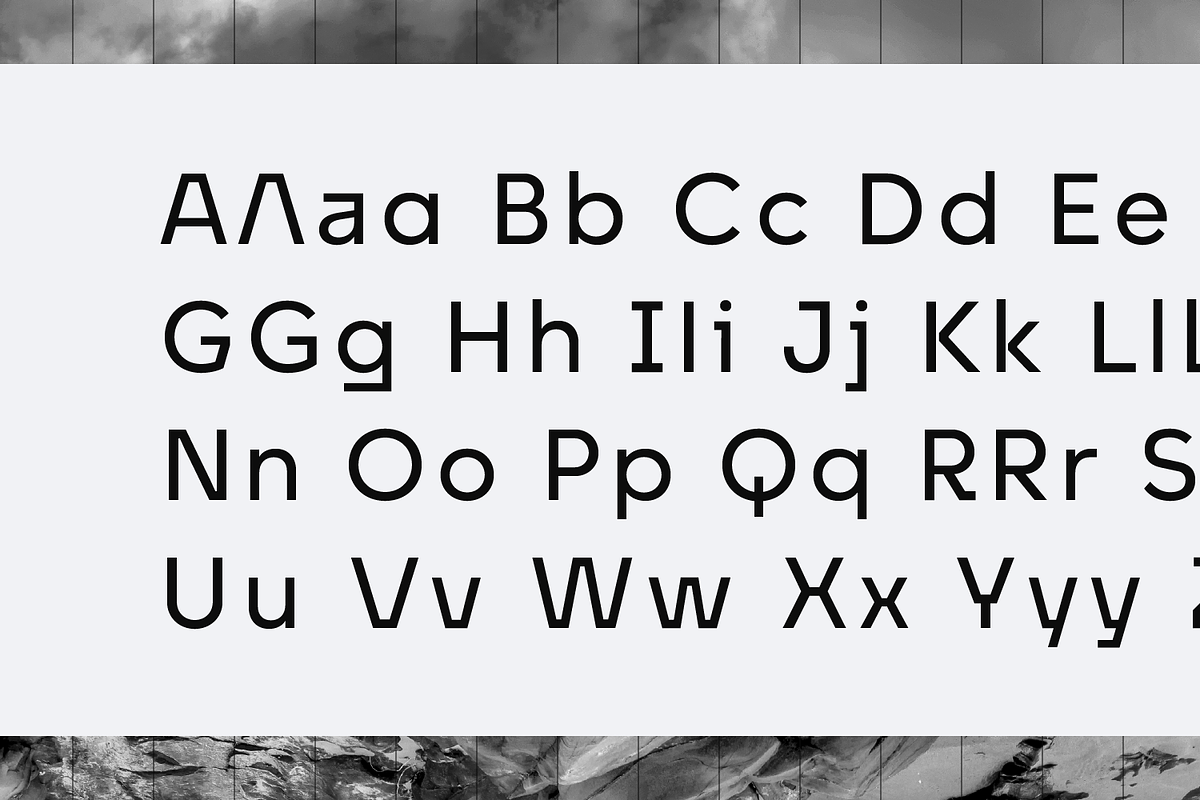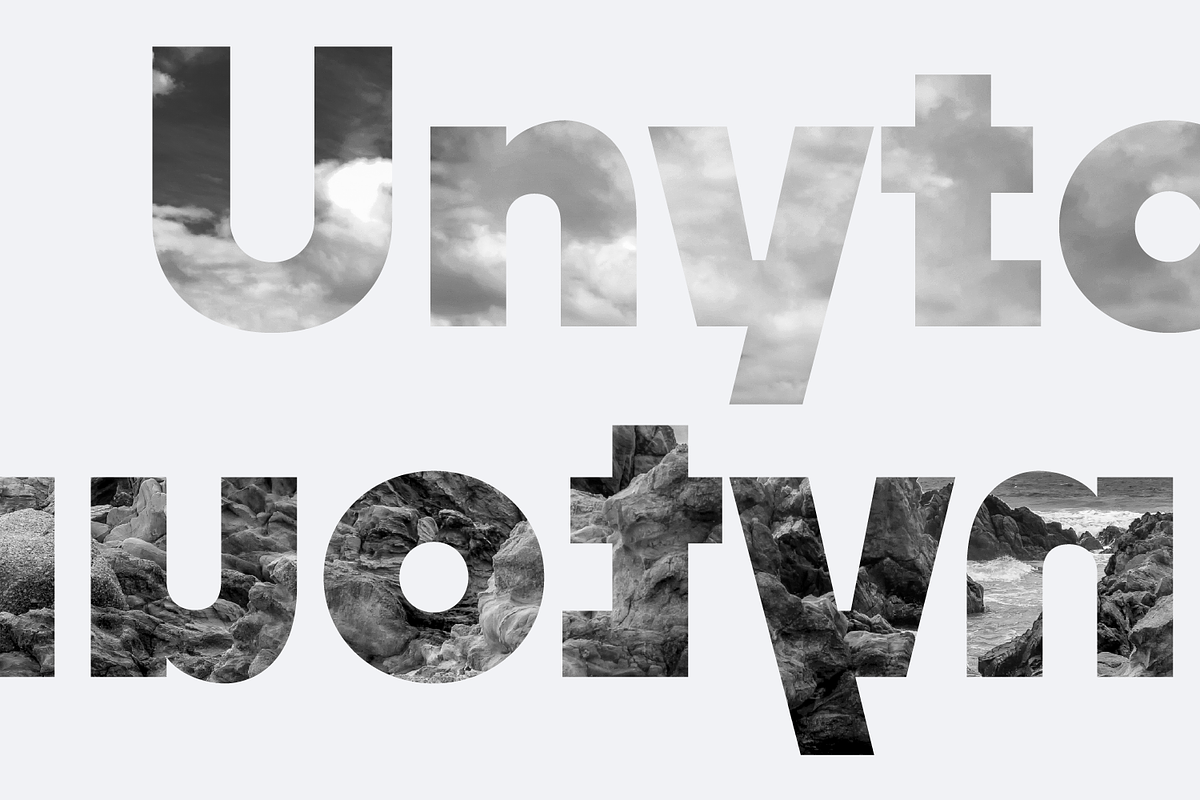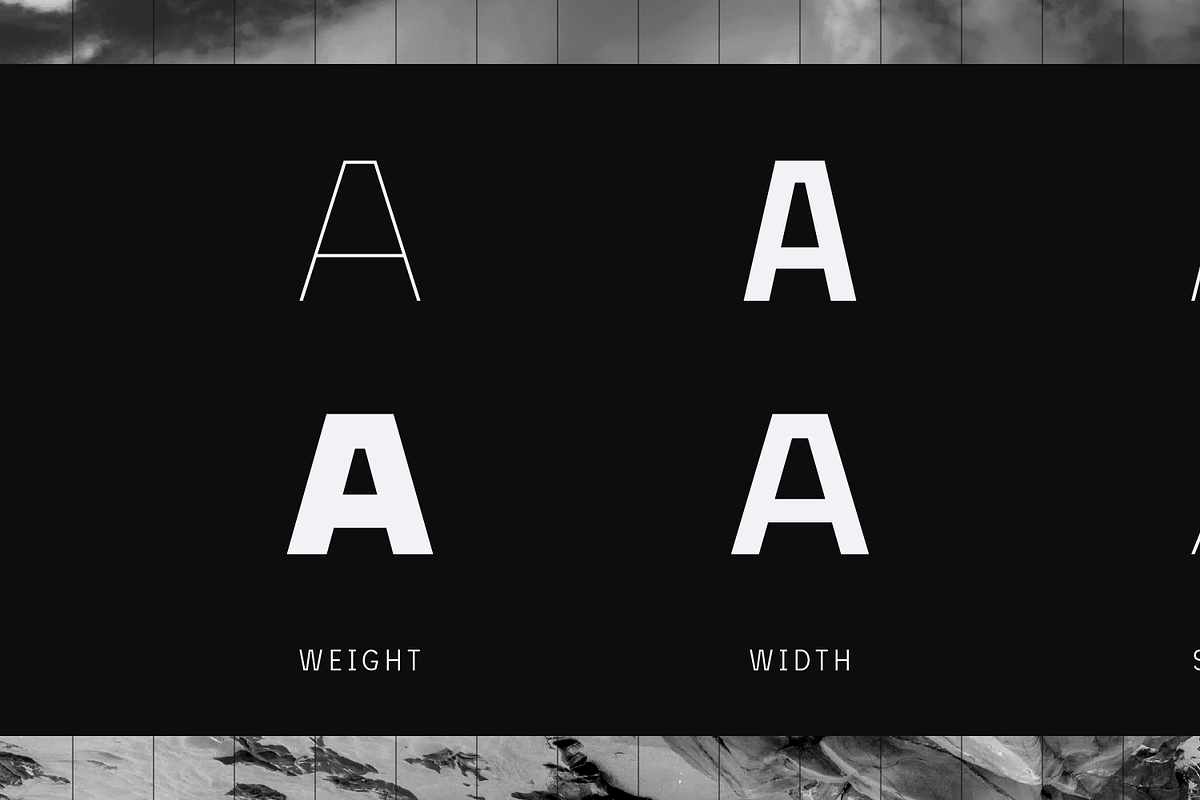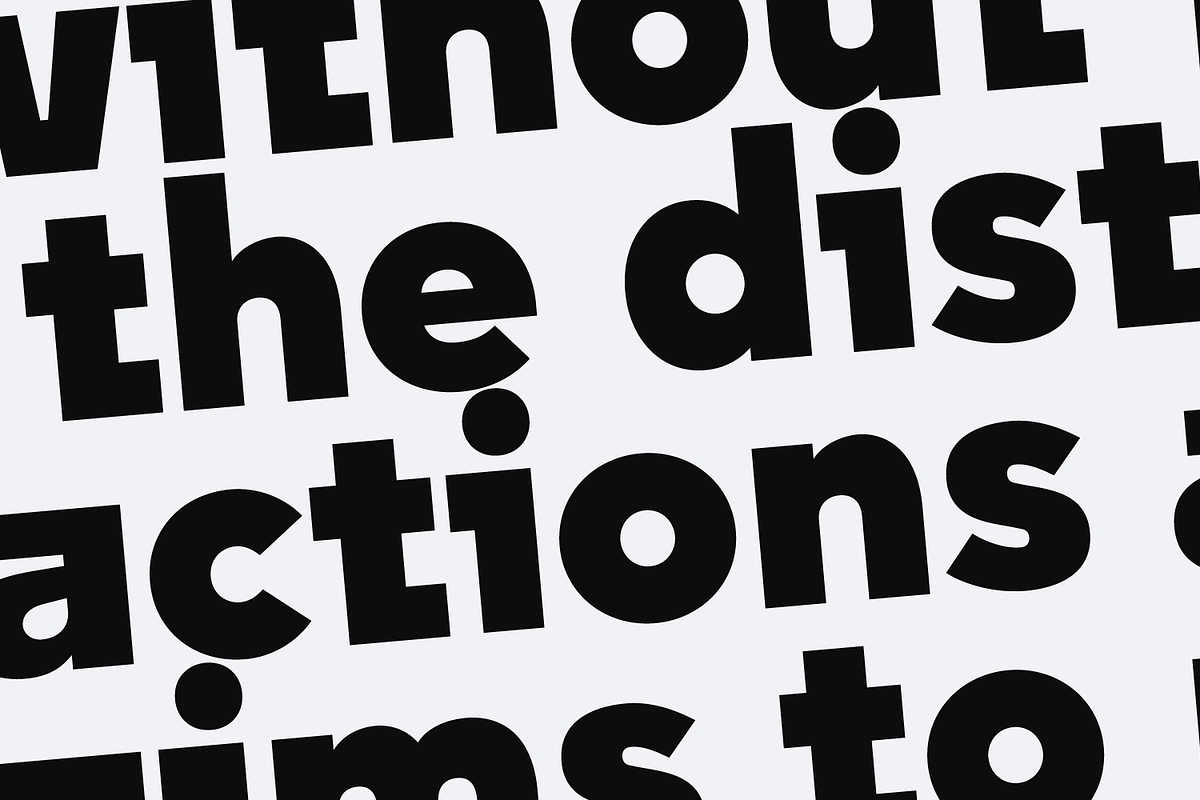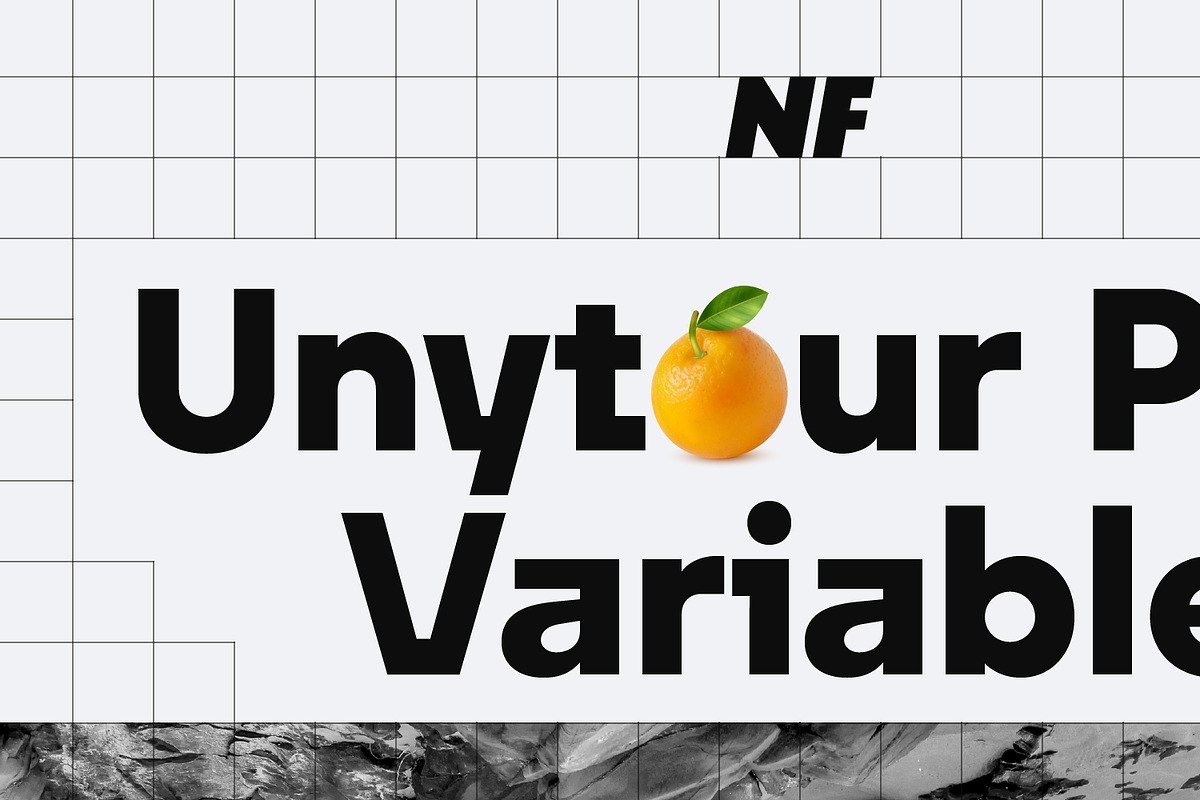
Unytour Pro Variable
Unytour Pro Variable font – a dynamic addition to the renowned Unytour Pro font family. Variable font includes 3 subfamilies: Condensed, Narrow, and Normal. With its variable font technology, Unytour Pro Variable font empowers designers with flexibility. Seamlessly adjust weight, width, and slant parameters to achieve the perfect balance and aesthetic harmony for your projects. The font includes alternate glyphs for characters such as A, G, I, R, a, l, t, y, ensuring that your typography stands out with unique flair. Additionally, a rich array of OpenType features further enhances your creative toolkit. Unytour Pro Variable features excellent legibility for print, as it does for reproduction on TV screens and more.